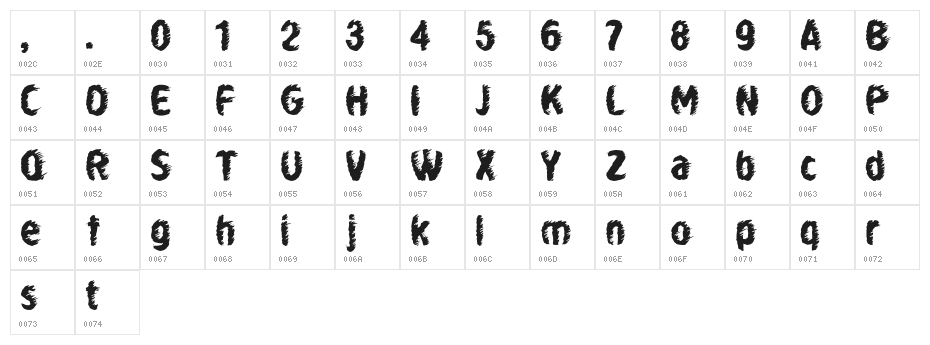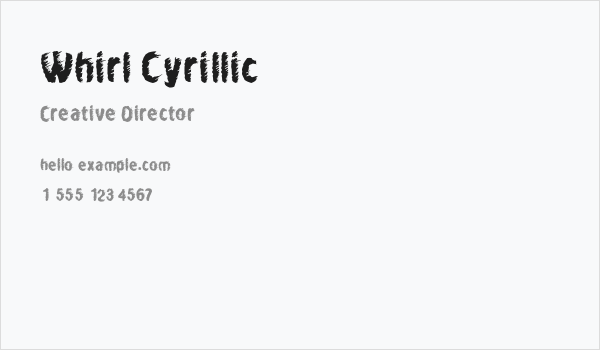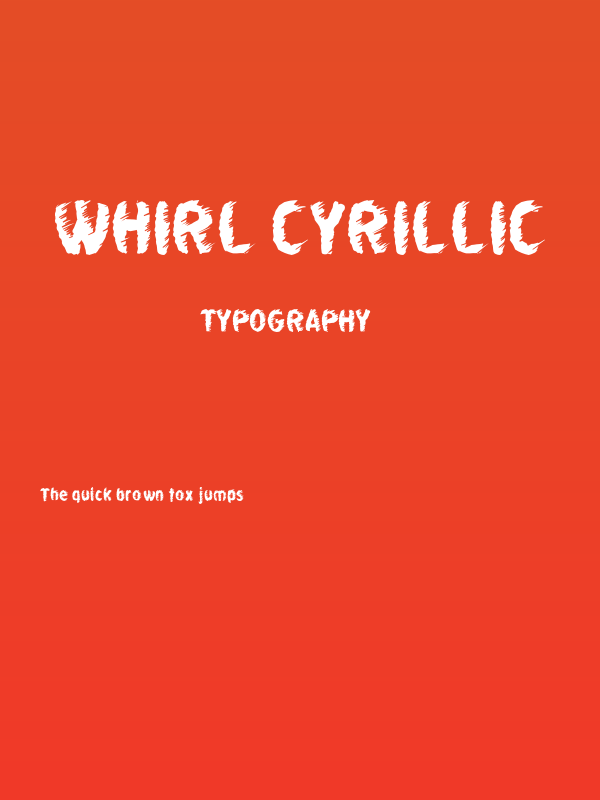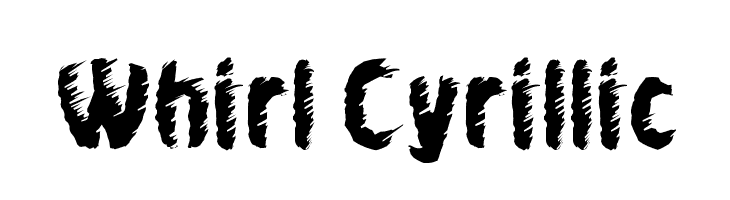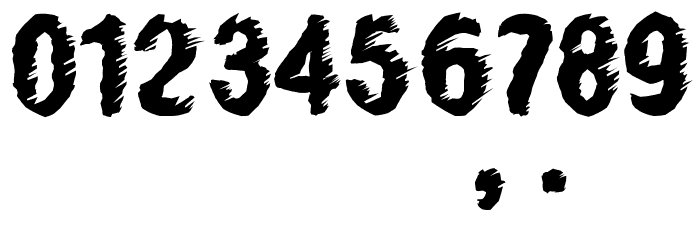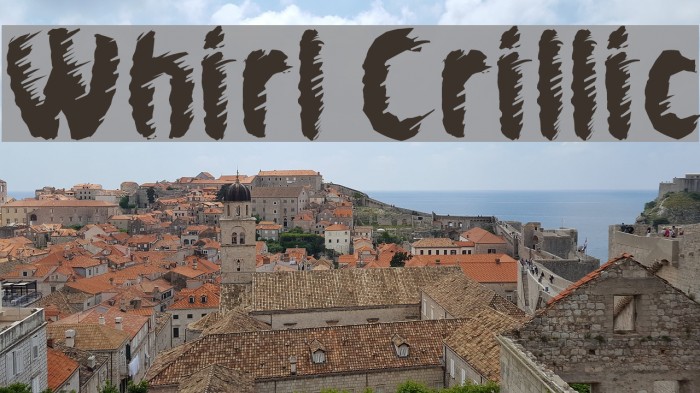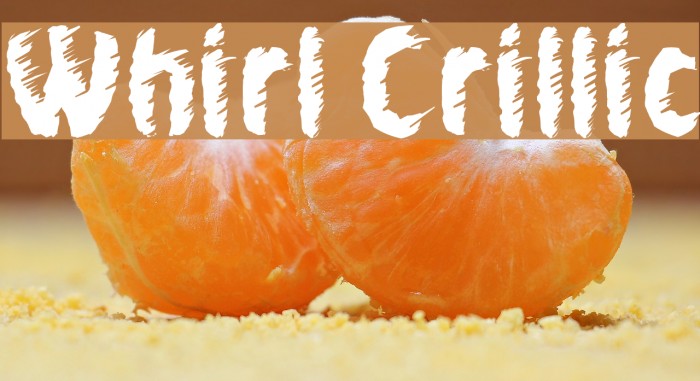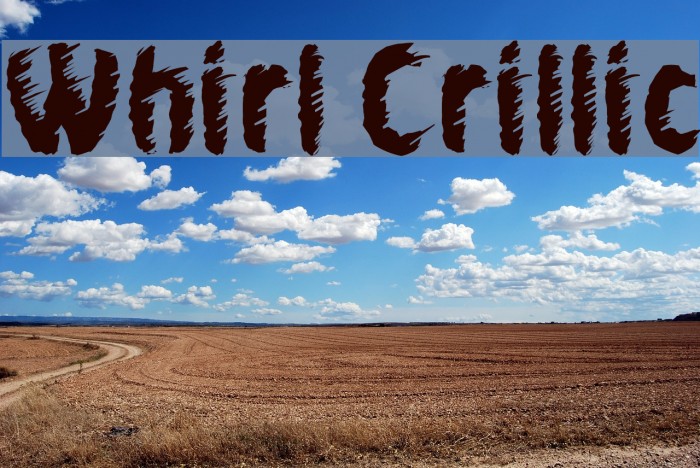
Whirl Cyrillic Font
Whirl Cyrillic Description
This font features a bold and dynamic style with a distressed, brush-like texture that gives it a sense of movement and energy. Each character appears as if it has been painted with swift, confident strokes, creating a rugged and artistic appearance. The uppercase and lowercase letters maintain a consistent style, with jagged edges and varying stroke widths that add to the font's unique character. The numerals and special characters follow the same aesthetic, ensuring a cohesive look across all elements. This font is ideal for projects that require a bold statement or an artistic touch.
| Overall Style | Modern, Artistic |
| Proposed Projects | Ideal for posters, album covers, branding, and any design requiring a bold, artistic flair. |